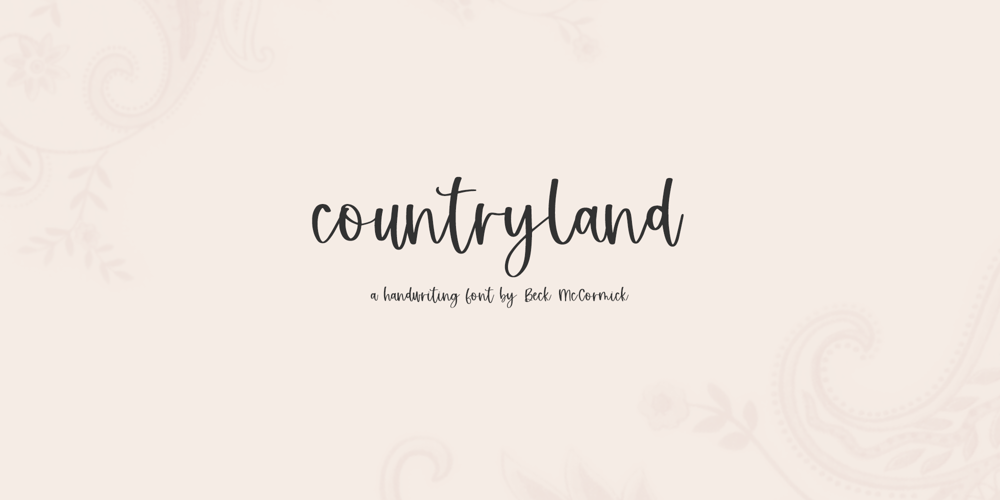
Countryland Script
Countryland Script font
Countryland Script Font Family was designed by Beck McCormick and published by BeckMcCormick. Countryland Script contains 1 styles and family package options. Countryland Script is a hand lettered font. It’ll be a perfect fit for your cute home decor projects, your Cricut machine, logo & branding projects, marketing materials, social media graphics, & more. Countryland Script includes:- full upper + lowercase characters- numbers + punctuation- PUA-encodingExtensive Language Support:Western European, Central European, South Eastern European, South American, Oceanian, Vietnamese, EsperantoCountryland Script can be used with graphic design programs such as Illustrator or Photoshop, word processing programs like Pages or Word, Design Space, Silhouette, Procreate, Canva Pro, Glowforge, GoodNotes, & more. This font is an installable for desktop & laptop machines, as well as iPads or iPhones. See below for links to help with installation.